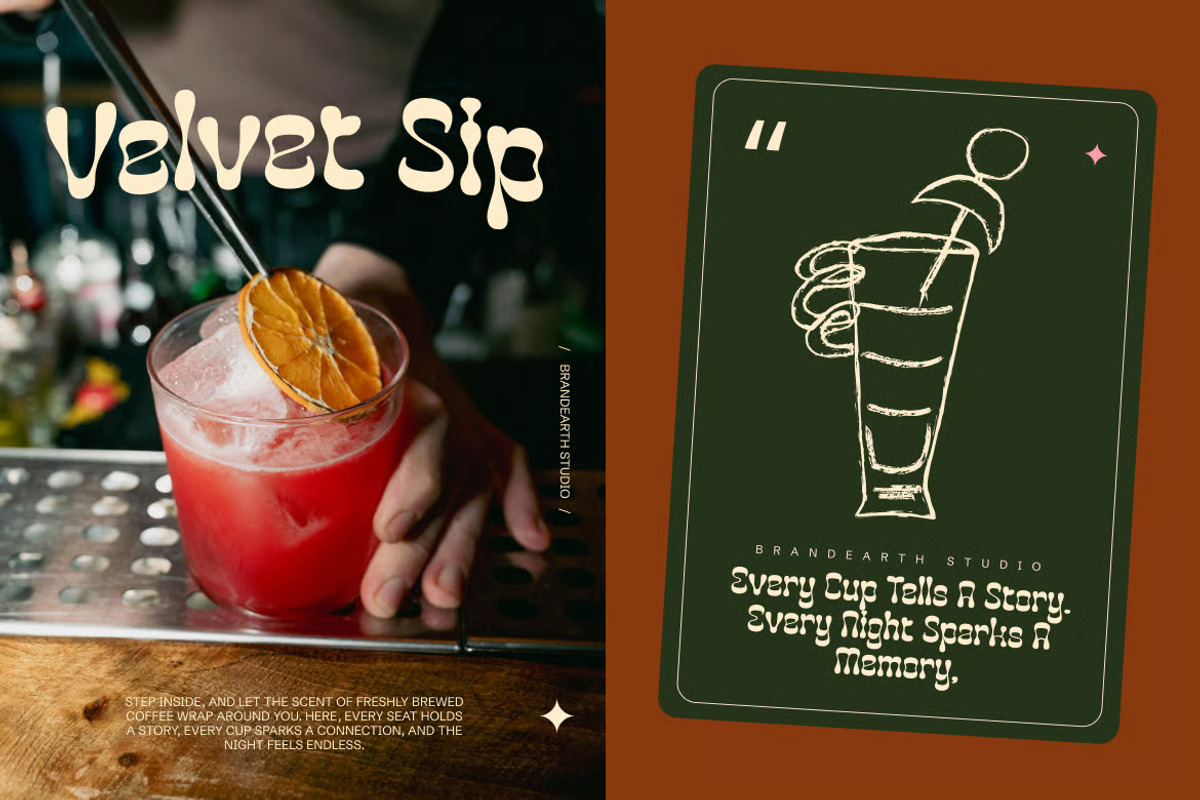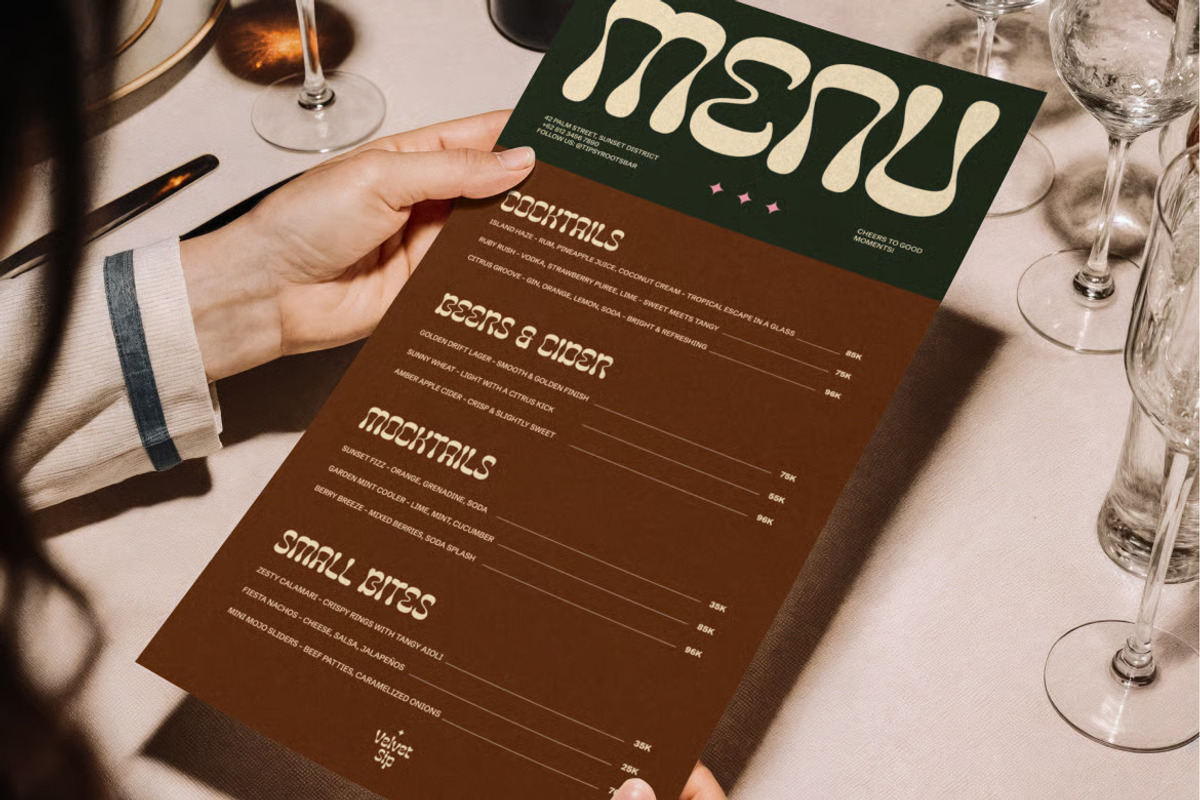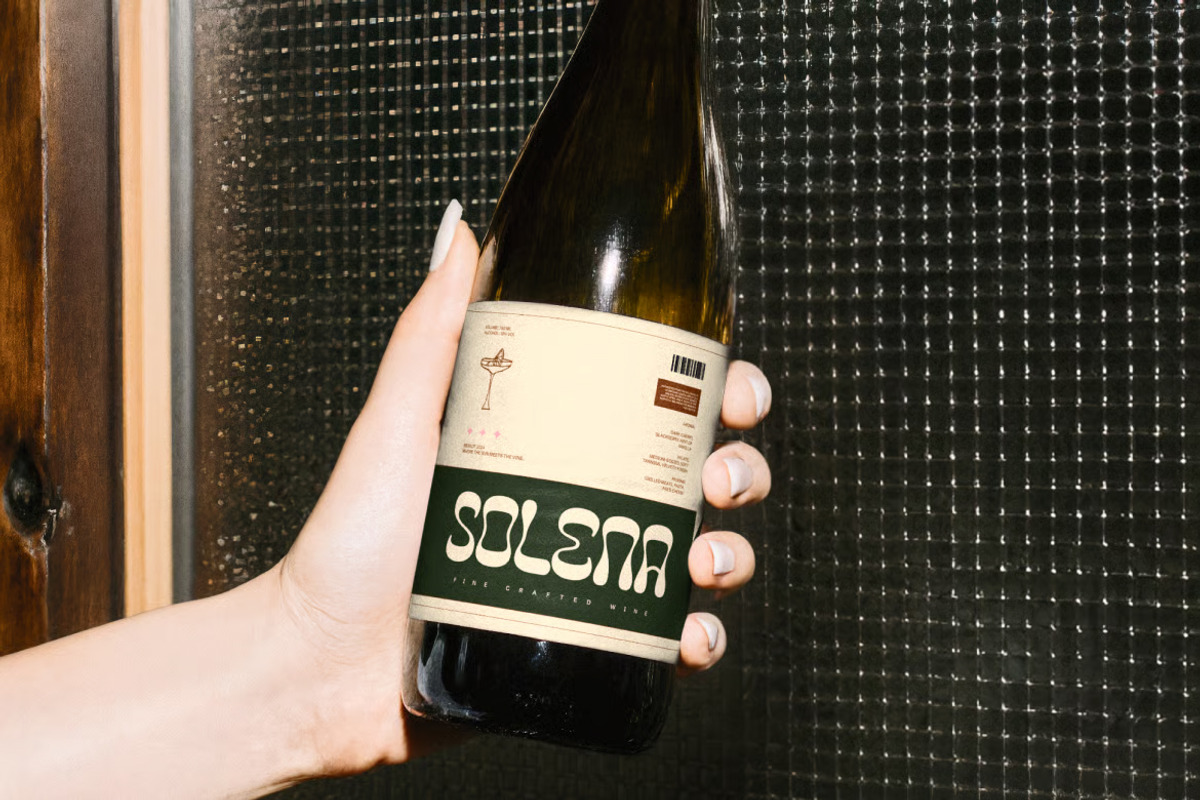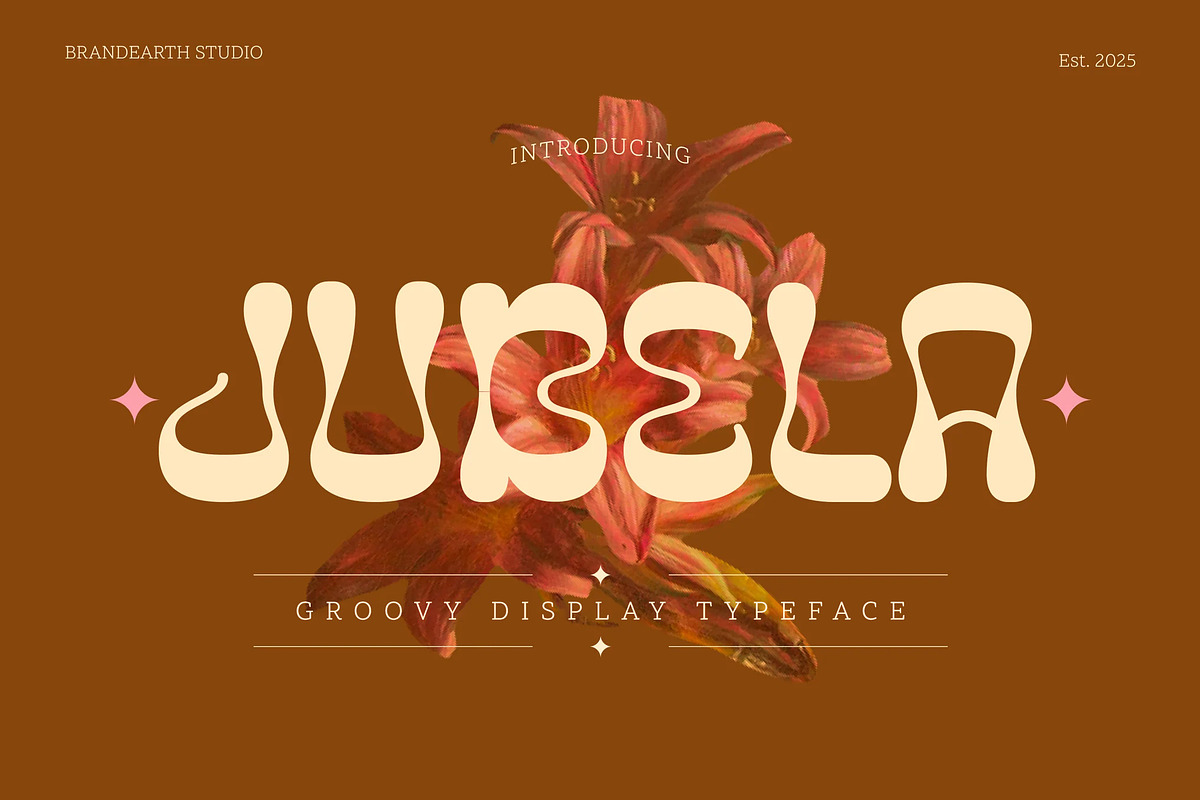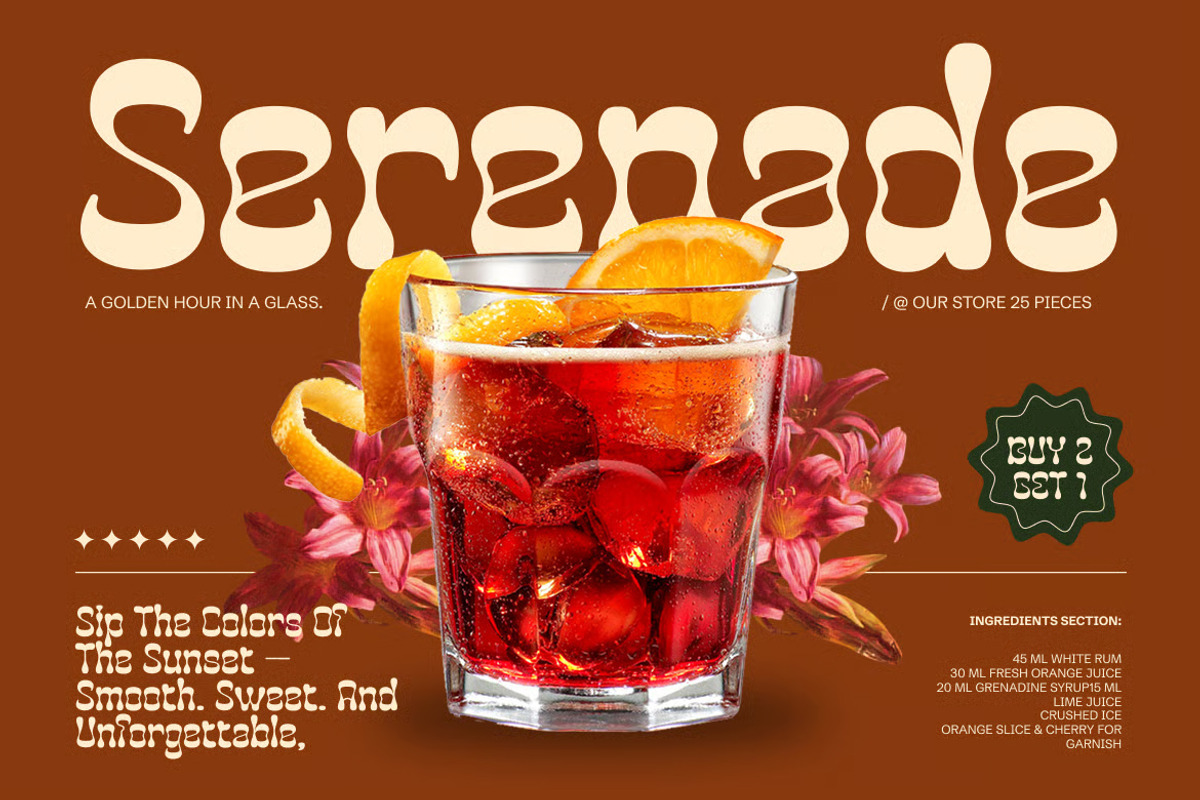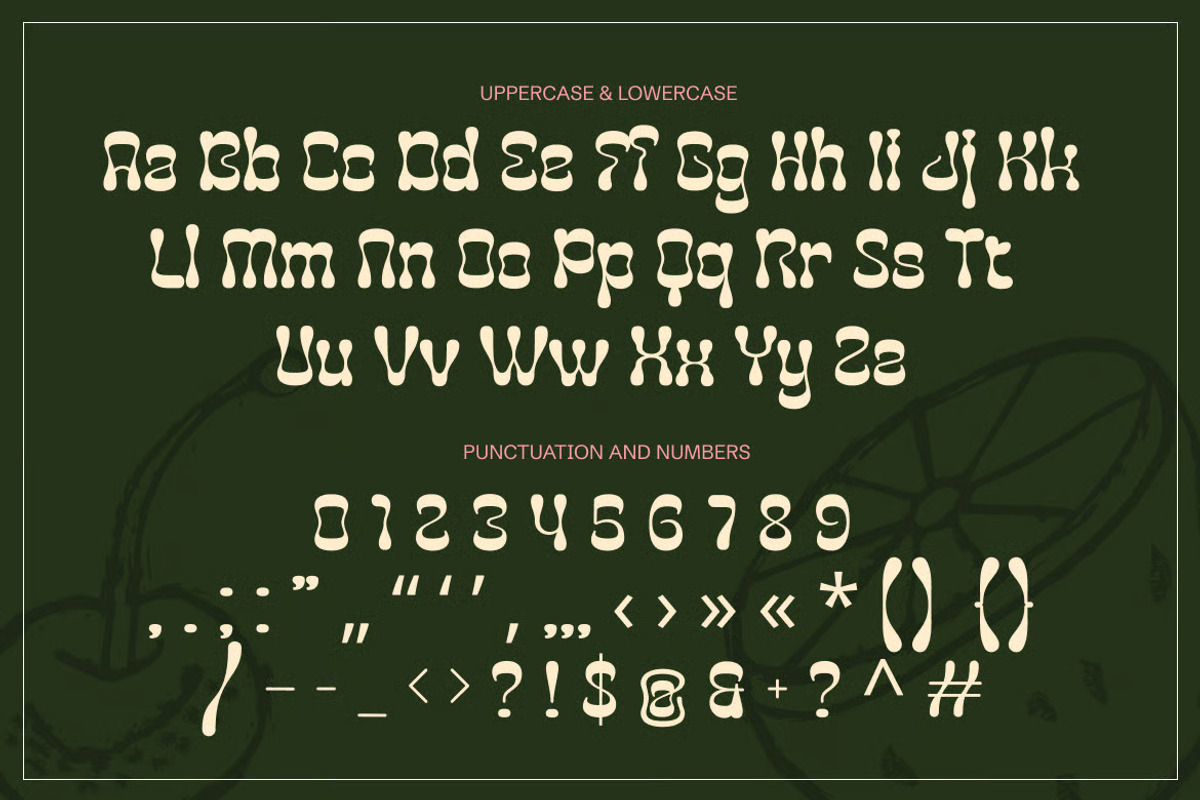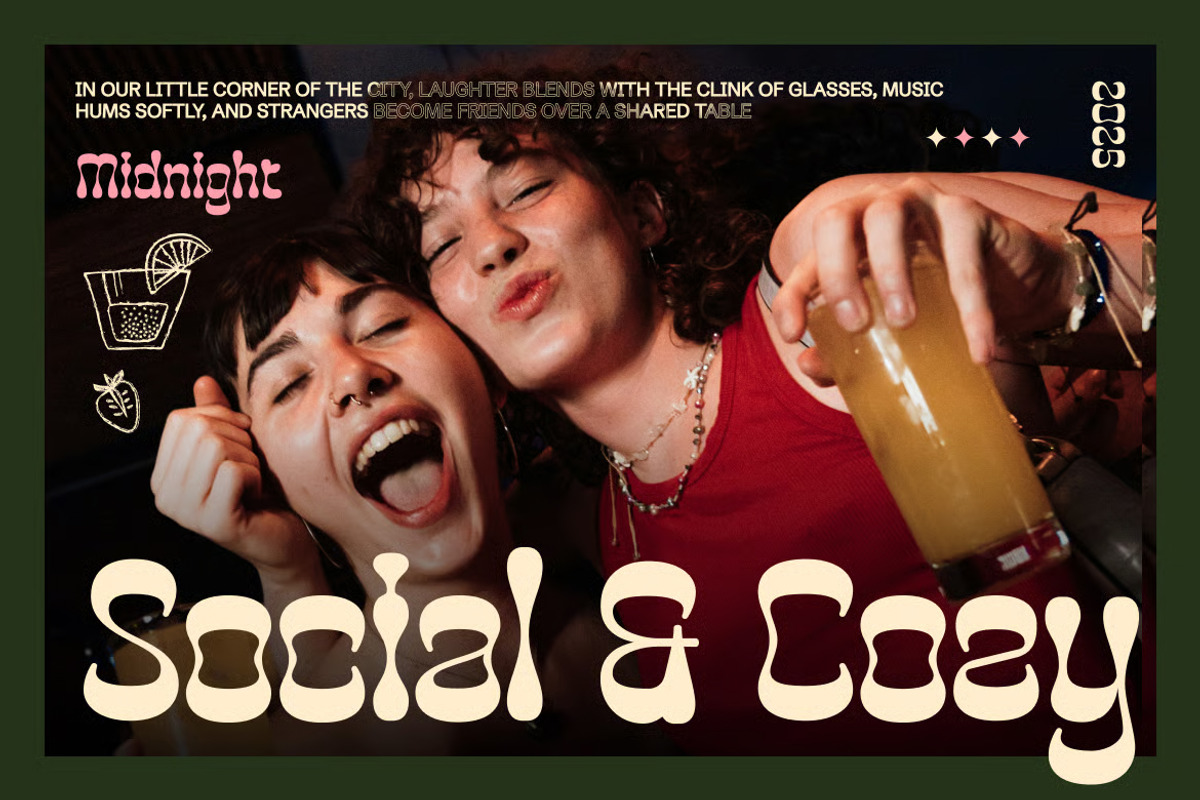
Jubela – Groovy Psychedelic Font
Jubela Groovy Retro Psychedelic Font brings a bold, playful, and nostalgic touch to your design projects. Designed to capture the fun, free-spirited energy of vintage groovy lettering, its energy is playful, quirky, and nostalgic-inspired—perfect for those looking to elevate their brand with a fun, stylish, and retro visual identity.
The letterforms in Jubela feature smooth curves, quirky shapes, and retro-inspired details that give the typeface a bold and playful rhythm. It offers both uppercase and lowercase characters, numbers, and punctuation to give full flexibility in creating standout typography.
With its groovy curves and nostalgic charm, Jubela bridges the gap between vintage flair and modern readability. It adds a unique flair that draws attention and enhances visual storytelling, making it ideal for branding, creative campaigns, editorial layouts, and digital graphics.
Numeral & Punctuations
Suitable For: poster design, logo design, merchandise, magazine titles, editorial layout, motivational quotes, packaging, display typography, event promotion, banner design, signage, creative campaigns, advertising, branding projects, social media graphics, retro album covers, music festival posters, product packaging, vintage-inspired illustration, lifestyle blog headers, café or bar menu design.